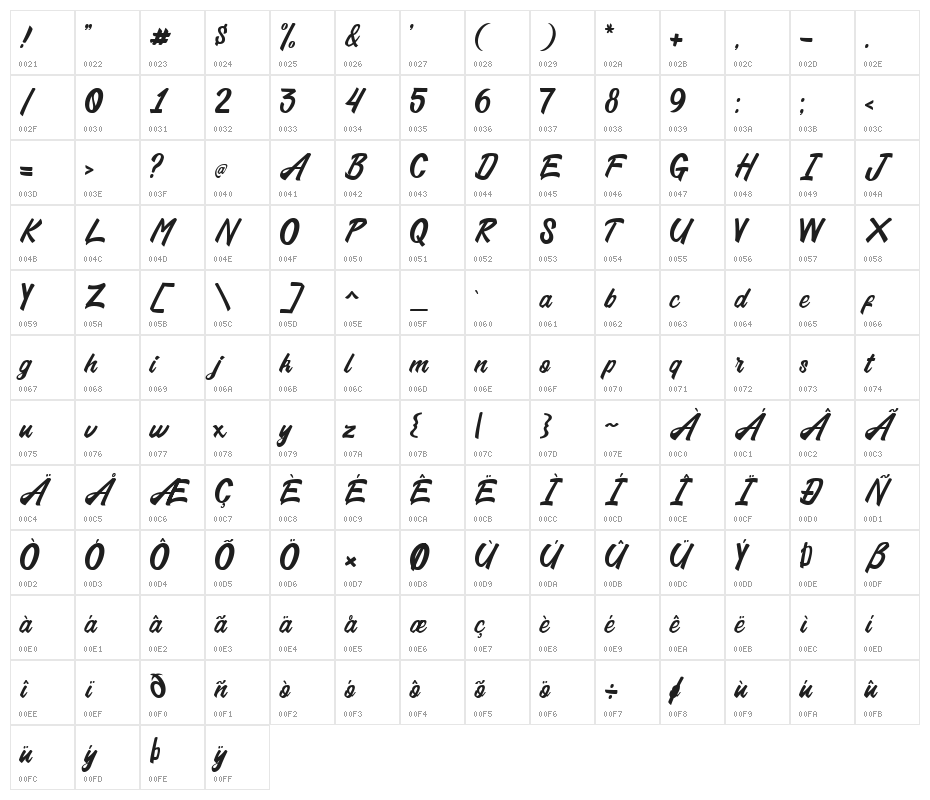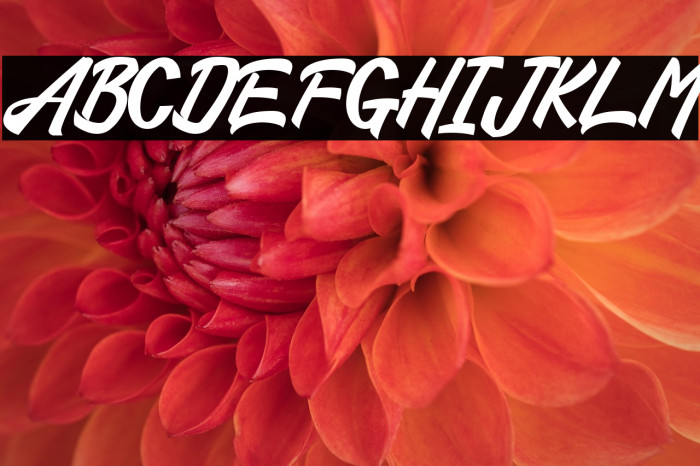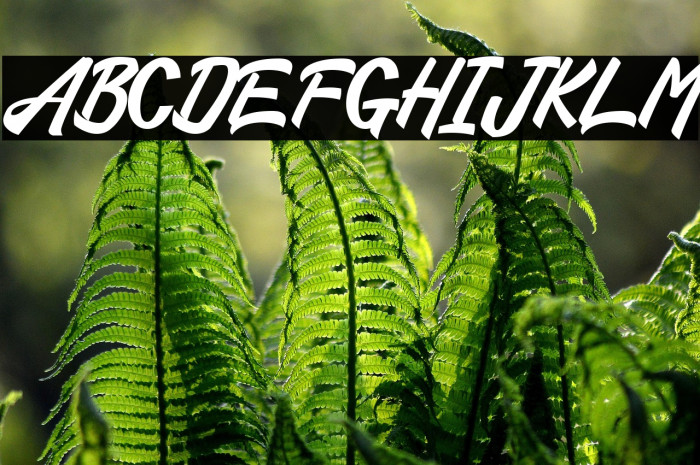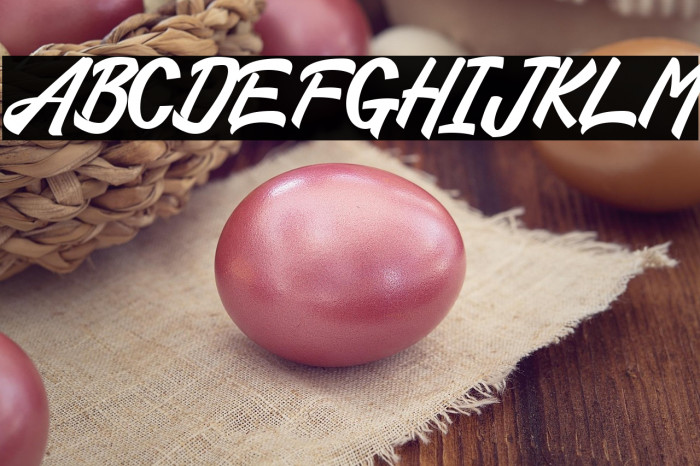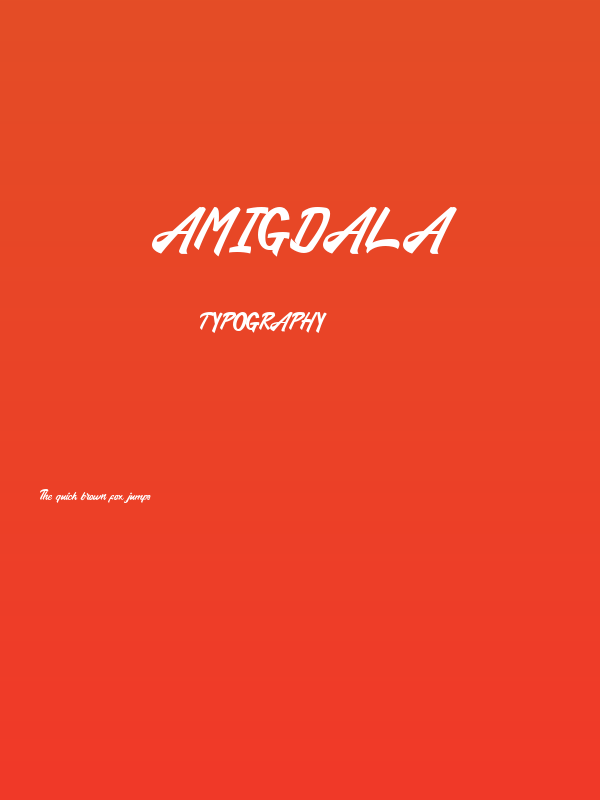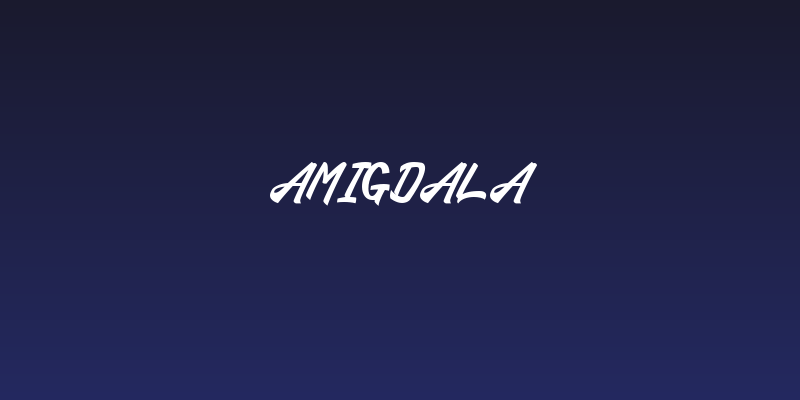
Amigdala Font
Amigdala Description
This font features a dynamic and flowing script style, characterized by its bold and slightly slanted letters. The uppercase letters are particularly striking, with a sense of movement and energy, while the lowercase letters maintain a cohesive and elegant appearance. The numerals are clear and bold, matching the overall aesthetic of the font. Special characters are designed with the same attention to detail, ensuring consistency across all glyphs. The font's design is both modern and versatile, making it suitable for a variety of creative applications.